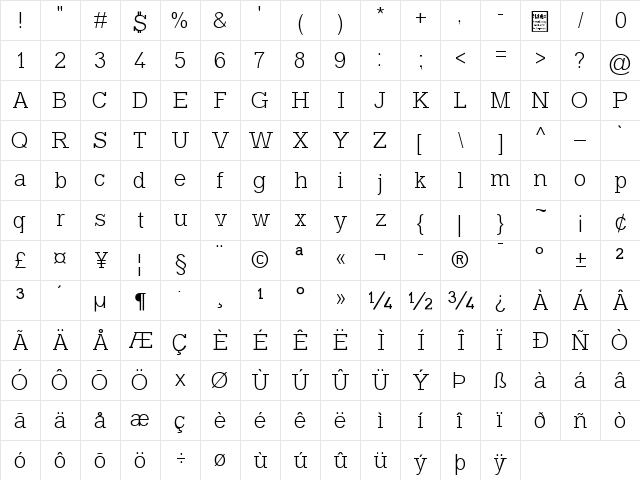
Typo Slab Light
| Foundry | StudioTypo |
| Designer | Mehmet Abac |
Design Context for Typo Slab Typeface
Typo Slab combines the readability of serif typography with the visual weight of a slab construction, resulting in a typeface that feels both authoritative and approachable. Its slender proportions lend an understated elegance to any composition.
Works well in editorial design, news publishing, impactful branding, and poster typography.
Pro Tip: Try Typo Slab set tight in headlines for a classic editorial feel. Its slab serifs create strong horizontal rhythm that anchors a page layout.